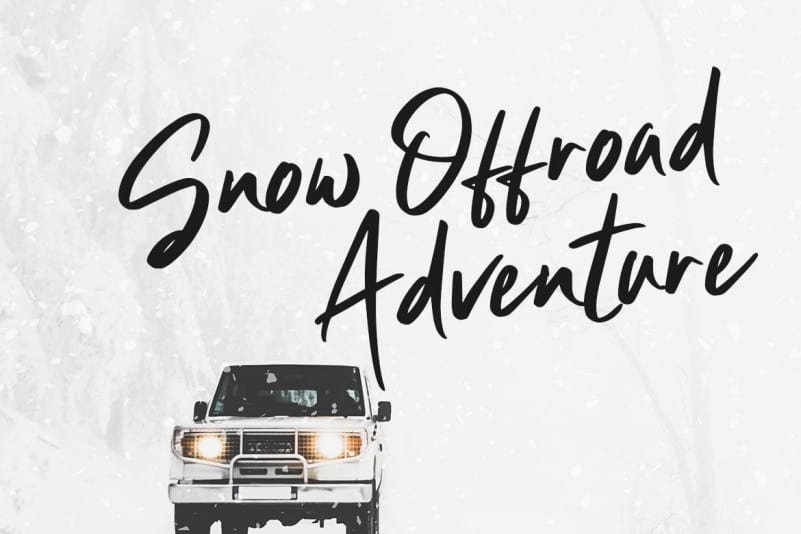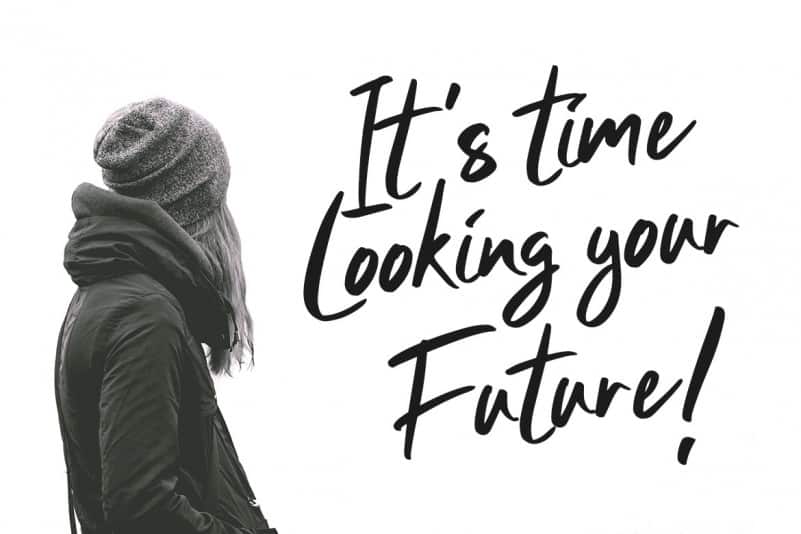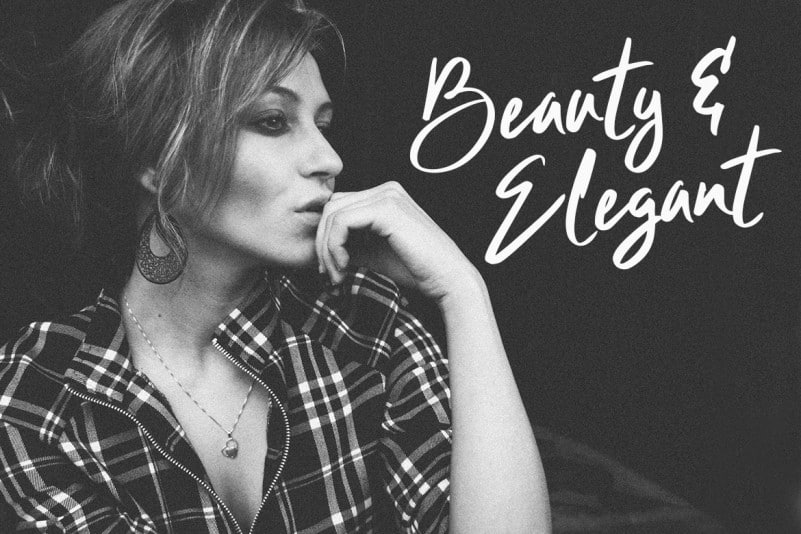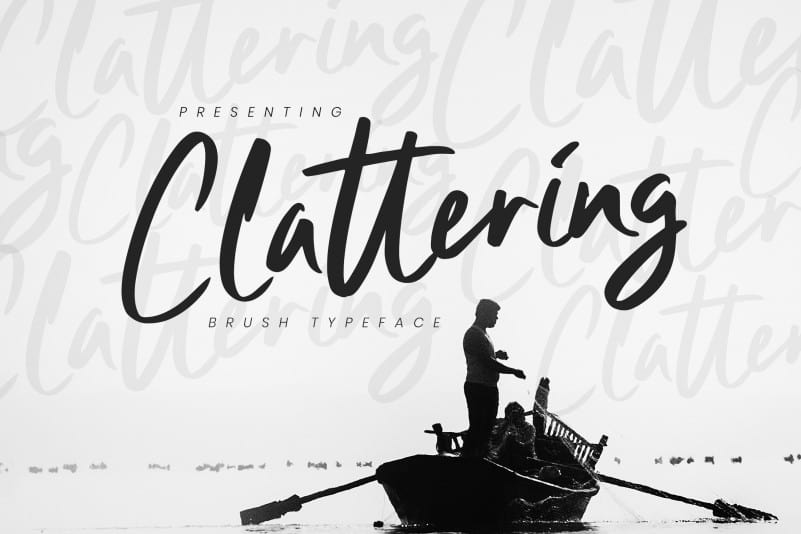
Clattering Brush Font is a new handwriting brush with some perfectly for Food Heading. Ready used with awesome character! It’s a handmade brush font with free-flowing and confident bold between thick and thin curves. Clattering Brush Font is design and shared by Creatype Studio. It’s perfect for branding projects, logo, wedding designs, social media posts, advertisements, product packaging, product designs, label, photography, watermark, invitation, stationery and any projects that need handwriting taste.
Clattering